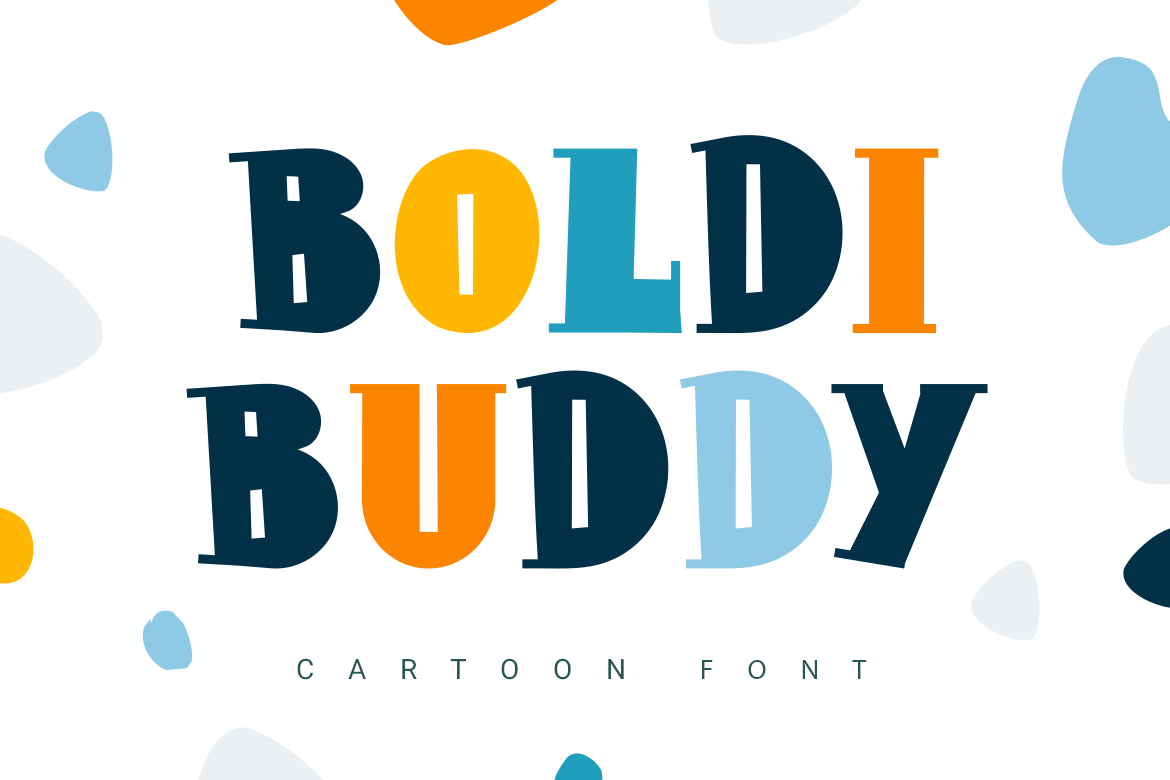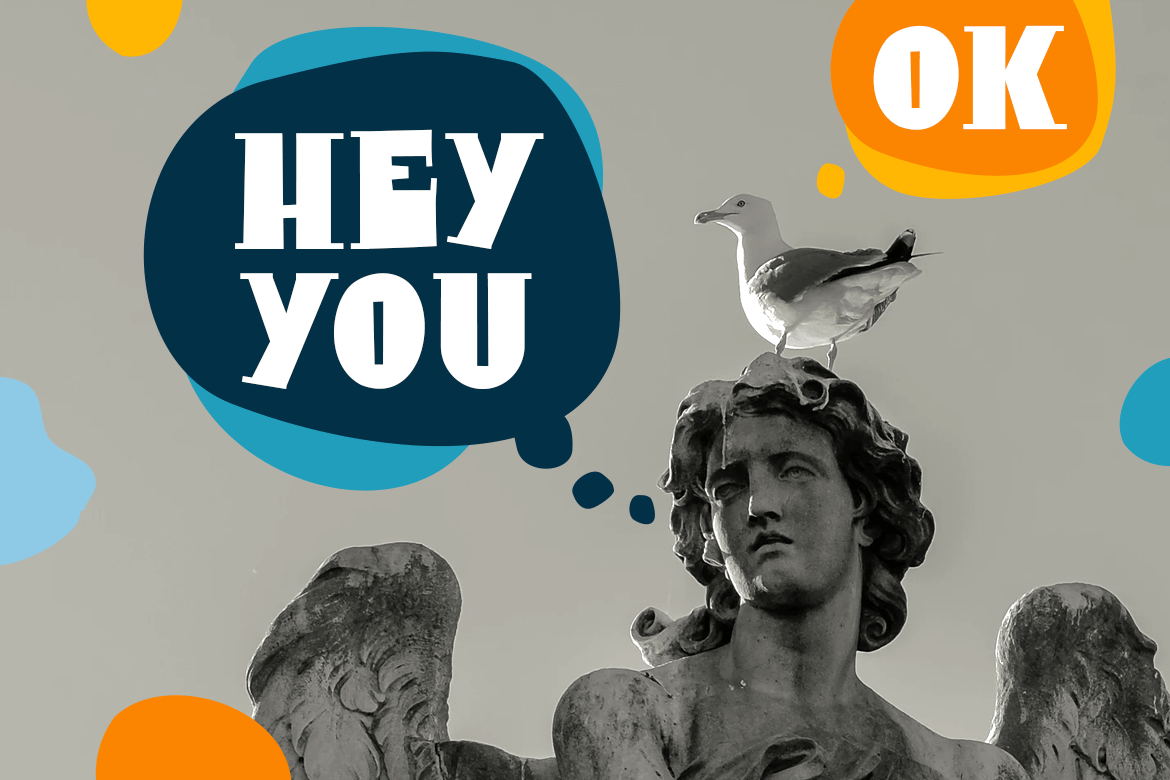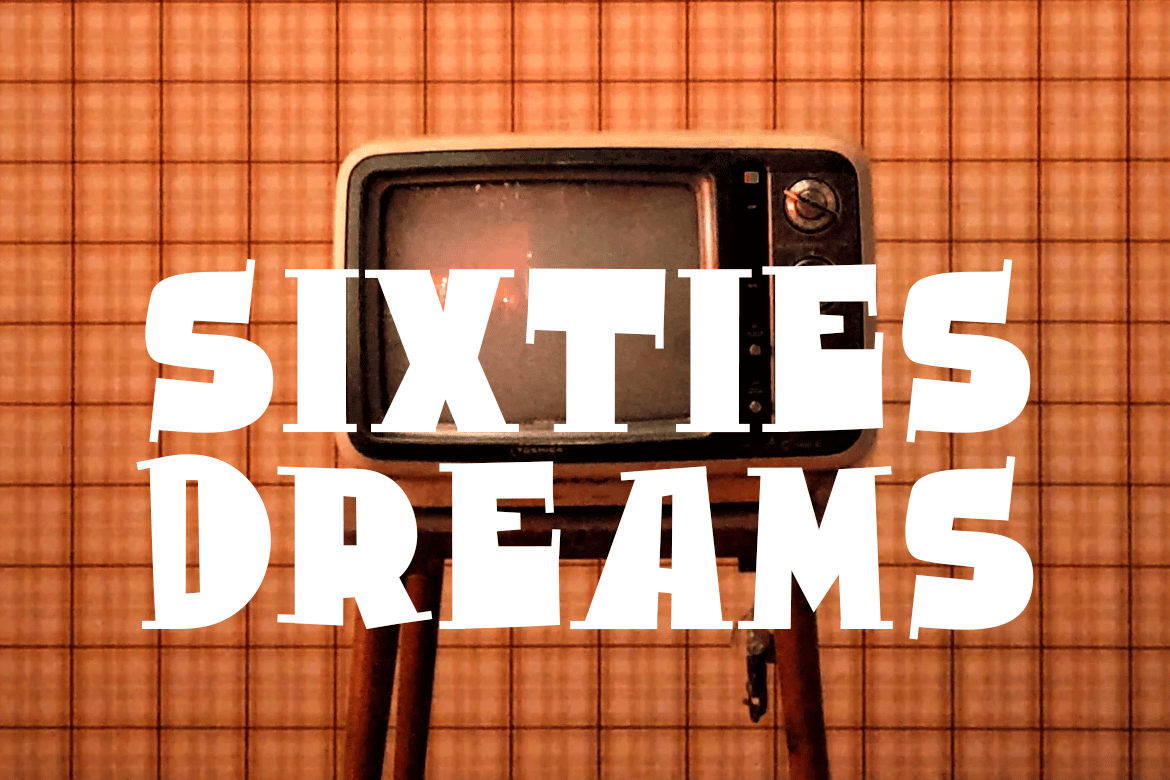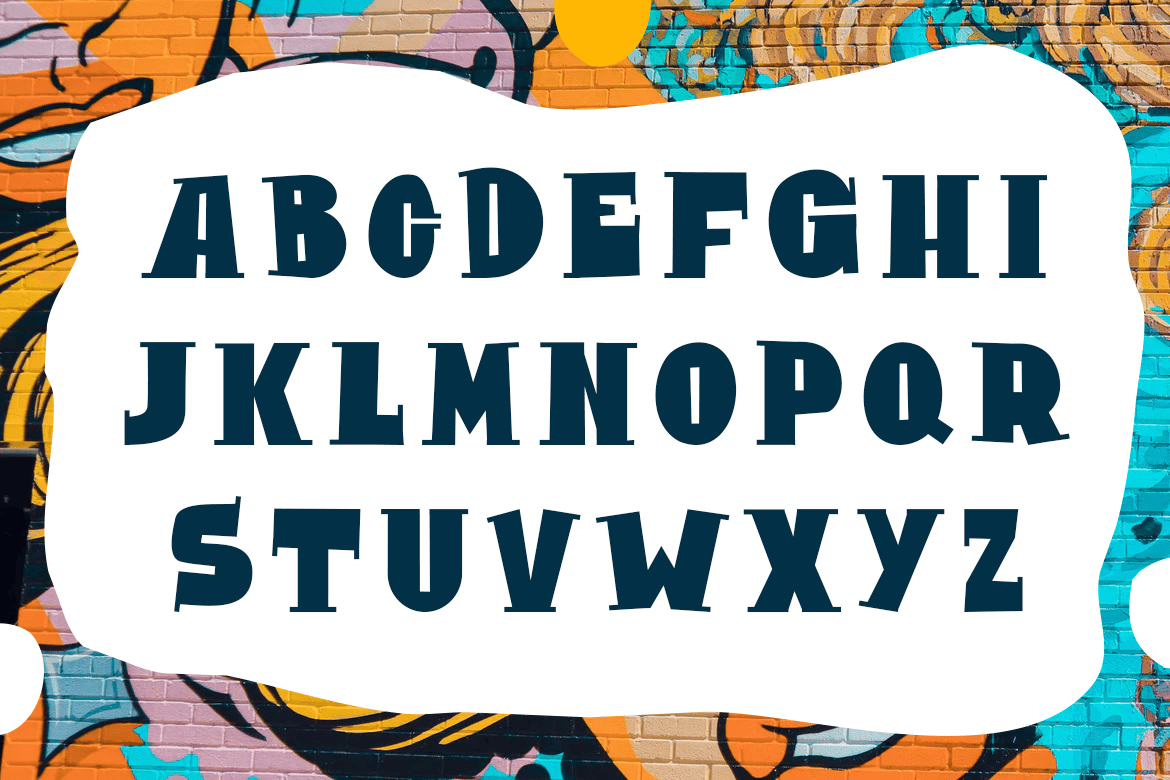
Boldi Buddy | cartoon font
Boldi Buddy is a serif font designed with very thick lines. The funny font has only capital latin letters, it works great to make short titles. The font looks good on both dark and light backgrounds.
Includes only uppercase black color letters.